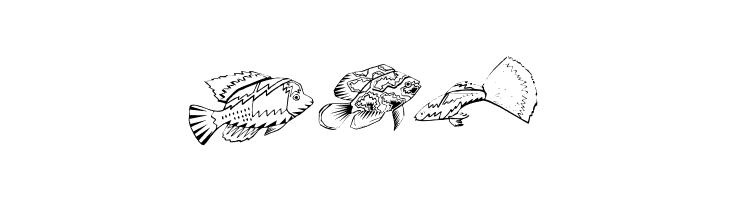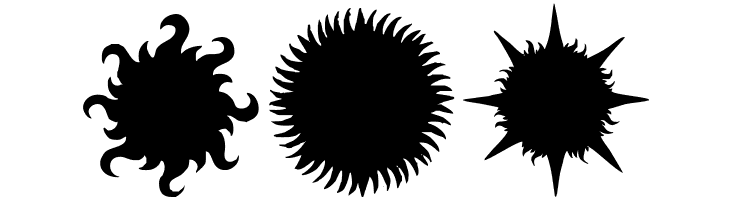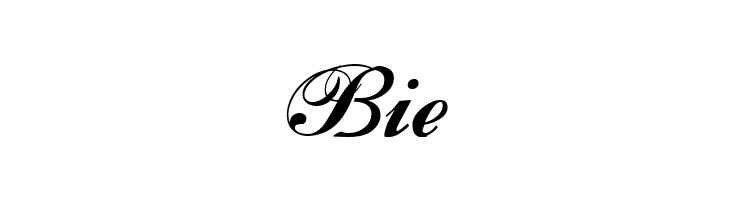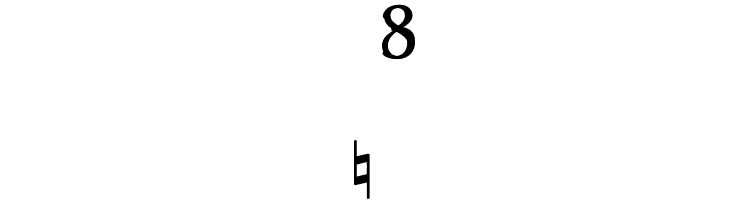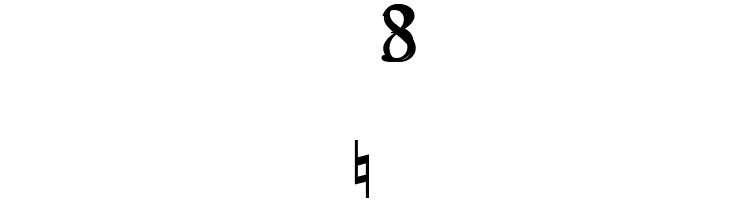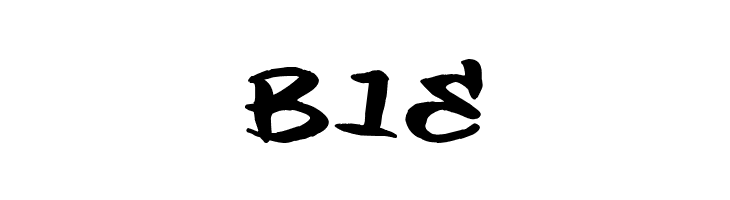
• FightersForFreedom
Bold pictogram dingbats depicting military and war-related imagery.
• FiguredBassMH
A specialized font for musical figured bass notation with clear, bold characters.
• FiguredBassMHGPL
A specialized font for musical notation, focusing on figured bass symbols.
• Filou Medium
• fin fraktur
• Fishing
Hand-drawn fish illustrations form each character in a playful, decorative style.
• FitnessSilhouettes
Energetic silhouette figures representing fitness and athletic activities.
• Flaming Stars Splatters
• Flash
A bold, dynamic font with a three-dimensional effect and energetic design.
• Flashit
A bold, brush-style script font with dynamic and expressive strokes.